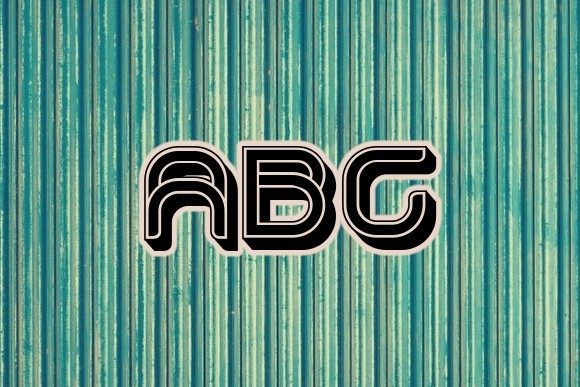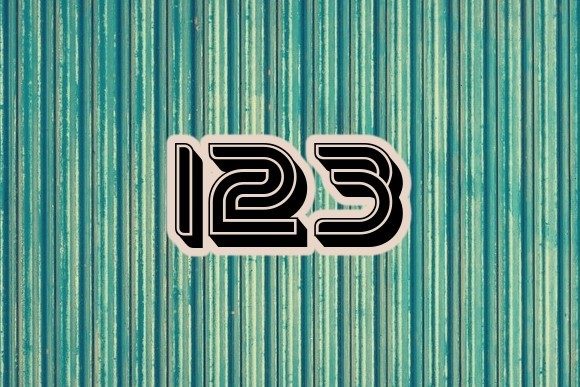
Introducing Fineliner Font: The Ultimate Display Font for Modern Designs
Are you tired of using the same old fonts in your designs? Look no further than Fineliner Font, a cool, bold, and modern looking display font that’s sure to elevate your creations. With its unique style and versatility, Fineliner is an incredible asset to any font library, regardless of the topic or theme.
What is Fineliner Font?
Fineliner Font is a display font designed to make a statement. Its bold and modern aesthetic makes it perfect for a wide range of applications, from posters and flyers to logos and branding materials. The font’s sleek lines and geometric shapes give it a cutting-edge look that’s sure to grab attention.
Key Features of Fineliner Font
- Bold and Modern Aesthetic: Fineliner Font has a bold and modern look that’s perfect for making a statement in your designs.
- Versatile: This font is versatile and can be used for a wide range of applications, from posters and flyers to logos and branding materials.
- Unique Style: Fineliner Font has a unique style that’s sure to set your designs apart from the crowd.
- Easy to Read: Despite its bold aesthetic, Fineliner Font is easy to read, making it perfect for use in body text as well as headlines.
Why Choose Fineliner Font?
There are many reasons why Fineliner Font should be your go-to display font. Here are just a few:
- Elevate Your Designs: Fineliner Font has the potential to elevate any creation, making it a valuable addition to your font library.
- Save Time: With Fineliner Font, you can create professional-looking designs in no time, saving you time and effort.
- Stand Out from the Crowd: Fineliner Font’s unique style ensures that your designs will stand out from the crowd and grab attention.
How to Use Fineliner Font
Fineliner Font is easy to use and can be incorporated into your designs in a variety of ways. Here are a few ideas to get you started:
- Headlines and Titles: Use Fineliner Font to create bold and eye-catching headlines and titles.
- Logos and Branding: Fineliner Font is perfect for use in logos and branding materials, such as business cards and letterheads.
- Posters and Flyers: Use Fineliner Font to create eye-catching posters and flyers that grab attention.
Tips and Tricks for Getting the Most Out of Fineliner Font
Here are a few tips and tricks for getting the most out of Fineliner Font:
- Experiment with Different Sizes: Fineliner Font looks great in a variety of sizes, so don’t be afraid to experiment to find the perfect size for your design.
- Play with Color: Fineliner Font looks great in a range of colors, so try experimenting with different colors to find the perfect look for your design.
- Pair with Other Fonts: Fineliner Font pairs well with a range of other fonts, so try experimenting with different pairings to find the perfect look for your design.
In conclusion, Fineliner Font is a cool, bold, and modern looking display font that’s perfect for designers and crafters looking to elevate their creations. With its unique style and versatility, Fineliner Font is an incredible asset to any font library. Whether you’re looking to create eye-catching headlines, logos, or posters, Fineliner Font is the perfect choice.